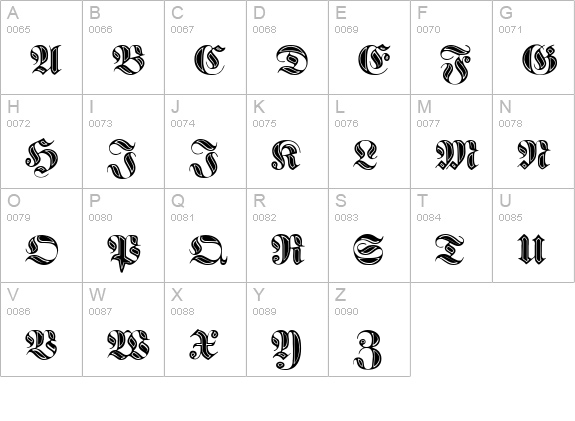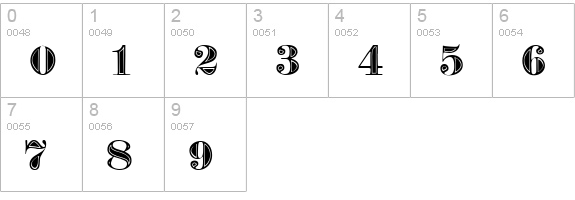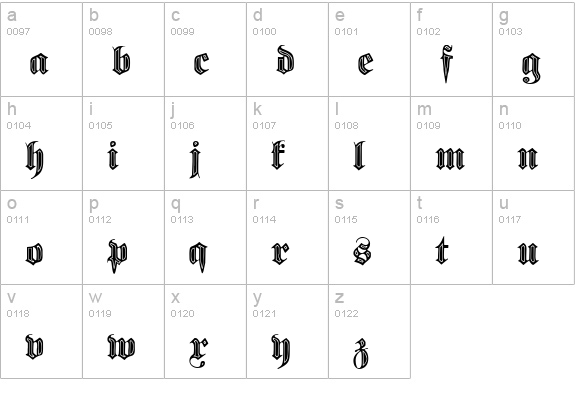
Proclamate Incised Heavy Font Details
Proclamate Incised Heavy is a heavy, high-impact variant in the Proclamate typeface family \xE2\x80\x94 well suited to high-impact headlines, posters, and display advertising.
Proclamate Incised Heavy font is a bold and impactful typeface that exudes strength and confidence. With its sharp edges and thick strokes, this font commands attention and makes a bold statement in any design project. Whether you are looking to create eye-catching headlines, powerful logos, or striking posters, Proclamate Incised Heavy is the perfect choice to convey a sense of authority and power. The best part is that Proclamate Incised Heavy font is completely free to download at FontsMarket.com. This means you can access this premium font without any cost, making it a fantastic option for both personal and commercial projects. Don't miss out on the opportunity to add this impressive font to your collection and elevate your designs to the next level. Download Proclamate Incised Heavy today and make a bold statement with your typography.